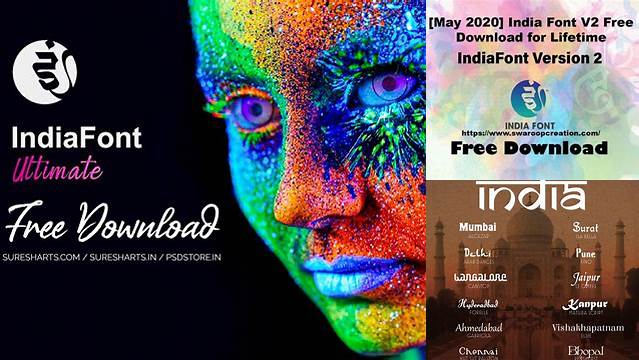
India Font V2: Free Download & Design Guide
Hey guys! Ready to dive into the world of typography with a focus on a cool font? Well, you're in luck! Today, we're going to explore the India Font v2, offering you a free download and loads of design inspiration. This font is perfect for anyone looking to add a touch of India's vibrant culture and artistic flair to their projects. Whether you're a seasoned designer or just starting out, I'll walk you through everything you need to know about the India Font v2. We will cover where to snag it for free, how to use it effectively, and some awesome design ideas to get your creative juices flowing. Get ready to transform your designs with this unique and versatile font!
India Font v2: What Makes It Special?
So, what's the buzz about the India Font v2? This isn't your run-of-the-mill typeface, guys. It's a font designed to capture the essence of India – its rich history, diverse culture, and artistic traditions. The India Font v2 stands out with its unique design elements and a character set that includes both English and Devanagari scripts. This means you can seamlessly integrate it into projects that require a blend of languages, making it super versatile. The font typically features a modern yet culturally-inspired design, often with subtle nods to traditional Indian art forms. It might include ornate details, elegant curves, or bold, eye-catching styles, depending on the specific version or style of the font. The creators often draw inspiration from elements like ancient scripts, temple architecture, and the vibrant colors of Indian festivals. The best part? It's designed to be both aesthetically pleasing and highly functional, ensuring readability and visual appeal across various applications. It's a great choice for branding projects, posters, social media graphics, and anything that needs a touch of Indian flavor. Because of its versatility, the India Font v2 is suitable for a wide range of design projects, from creating logos and website headers to designing invitations and promotional materials. It adds a unique and memorable touch that can elevate your projects. For those of you who are really interested in culture and uniqueness, you should definitely give this font a shot. It's an awesome way to add a distinct flair to your work! You will definitely feel the Indian vibe once you use it.
Features and Styles of the India Font v2
Let's get into the nitty-gritty. What makes the India Font v2 tick? Well, it comes with a range of features and styles that cater to different design needs. Here are some key aspects you should know. First off, the font usually offers multiple weights and styles. You might find options like regular, bold, italic, and condensed versions. This allows you to add variety and visual interest to your designs. For example, you can use a bold version for headlines to make them pop, and a regular version for body text to ensure readability. Also, the character set often includes both English and Devanagari scripts, making it a fantastic choice for bilingual projects. Imagine creating designs that seamlessly blend English and Hindi text! Plus, many versions of the India Font v2 come with OpenType features. These features unlock advanced typographic options like ligatures and stylistic alternates. Ligatures merge two or more characters into a single glyph, creating a more refined look. Stylistic alternates offer variations of letterforms, allowing you to add unique touches to your designs. The font’s design also often incorporates cultural elements. Designers might draw inspiration from traditional Indian art, architecture, or calligraphy. This is awesome because it adds an authentic feel to your projects. You will find subtle details and design cues that reflect India’s rich heritage. Furthermore, readability is a key focus. The font is designed to be easily readable at various sizes. This is super important because it ensures your message comes across clearly, no matter the application. Finally, the India Font v2 is designed to be versatile. It works well across different design applications, whether it's for print or digital media. It’s also compatible with most design software, including Adobe Creative Suite, CorelDRAW, and others.